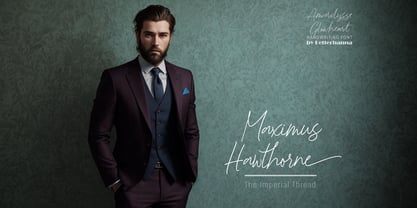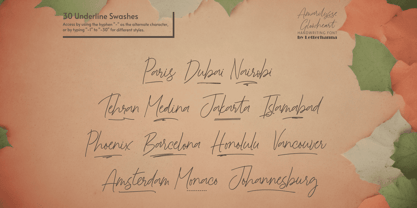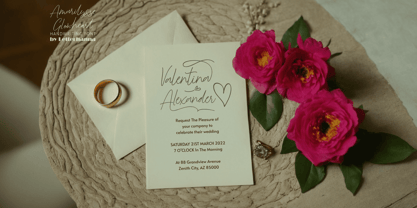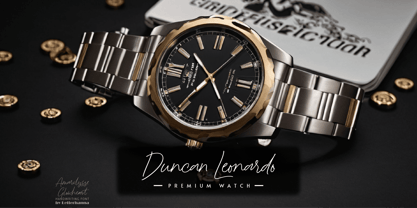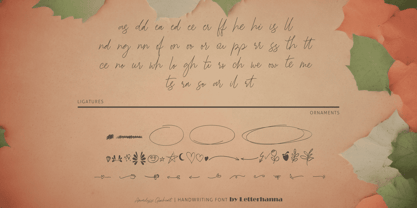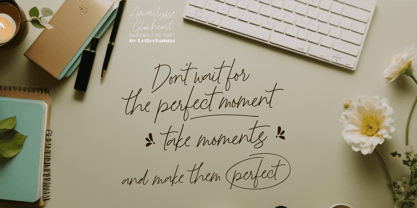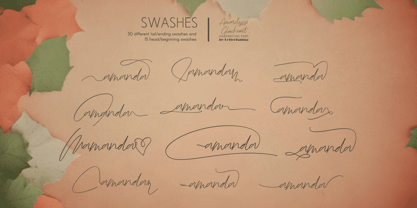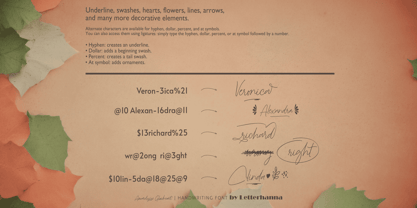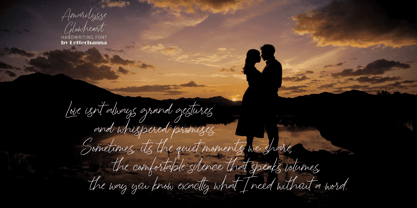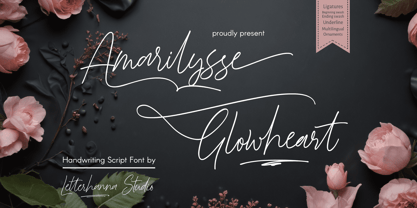
Amarilysse Glowheart
by Letterhanna Studio
The Amarilysse Glowheart Font Family was designed by Rinaldo Hasibuan and published by Letterhanna Studio. Amarilysse Glowheart contains 1 styles. More about this family
Introducing Amarilysse Glowheart, a handwriting script font that radiates elegance and warmth with its flowing curves and heartwarming strokes. Perfect for wedding invitations, branding, social media posts, and personal projects, this versatile font exudes the charm of natural penmanship. Featuring smooth connections, elegant ligatures, swashes, and multilingual support, Amarilysse Glowheart is designed to make your designs unforgettable. Whether you're crafting romantic stationery, stylish logos, or captivating digital content, this font adds a touch of sophistication and creativity to every project. Unlock your creative potential with Amarilysse Glowheart and let your words shine!
Designers: Rinaldo Hasibuan
Foundry: Letterhanna Studio